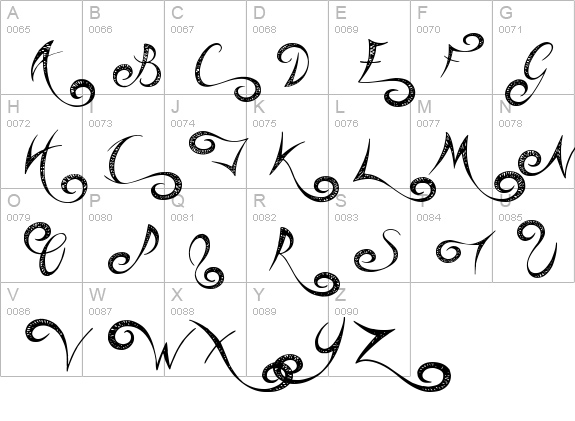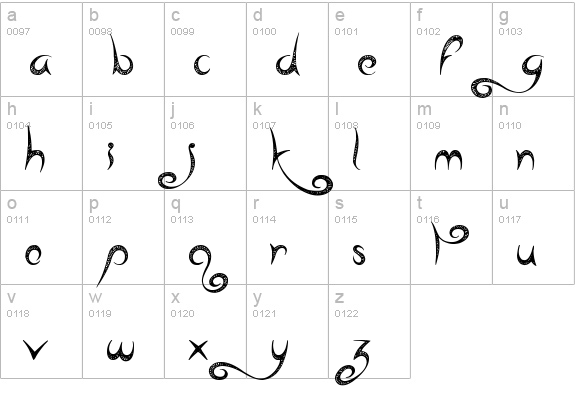
Circus Attraction Font Details
Introducing the mesmerizing Circus Attraction font - a true spectacle for the eyes! This enchanting typeface captures the essence of a vintage circus, with its playful and whimsical design. Each letter is adorned with intricate details, reminiscent of the ornate decorations found in circus tents. The elegant curves and bold strokes of this font bring to life the excitement and anticipation that fills the air under the big top. Circus Attraction is not just any ordinary font - it is a work of art that will transport you to a world of wonder and awe. The letters dance across the page, inviting you to join in the circus extravaganza. Whether you are creating posters, flyers, or invitations, this font will add a touch of magic and nostalgia to your designs. And the best part? Circus Attraction is freely available to download at FontsMarket.com! That's right, you can bring the charm and charisma of the circus to your projects without spending a dime. We believe that creativity should be accessible to all, and that's why we are offering this captivating font for free. So go ahead, unleash your imagination and let Circus Attraction be the star of your next design. With its undeniable charm and versatility, Circus Attraction is perfect for a variety of projects. Use it to create captivating headlines, eye-catching logos, or even to add a touch of whimsy to your social media posts. No matter how you choose to utilize this font, one thing is for sure - it will leave a lasting impression on anyone who lays eyes on it. So, what are you waiting for? Head over to FontsMarket.com and download Circus Attraction font today. Let the magic of the circus come alive in your designs and leave your audience amazed and delighted. Get ready to step into a world where imagination knows no bounds, and creativity knows no limits with Circus Attraction font - the font that brings the circus to you, free of charge.